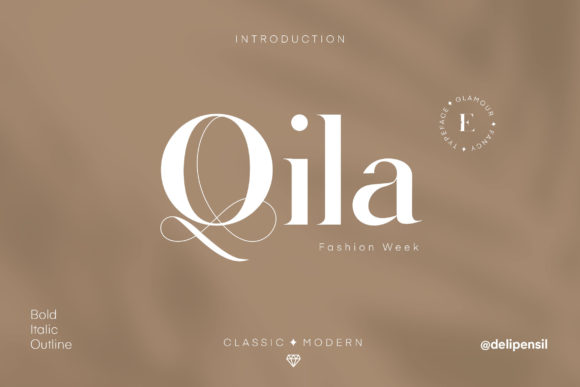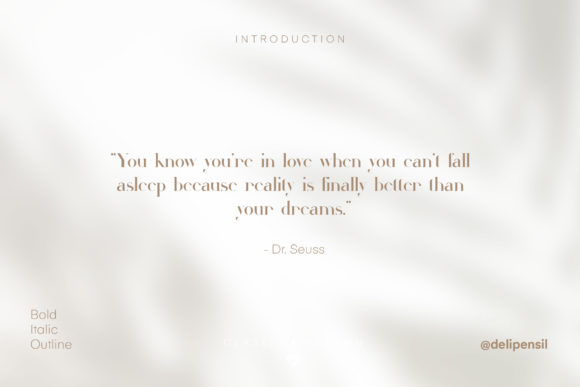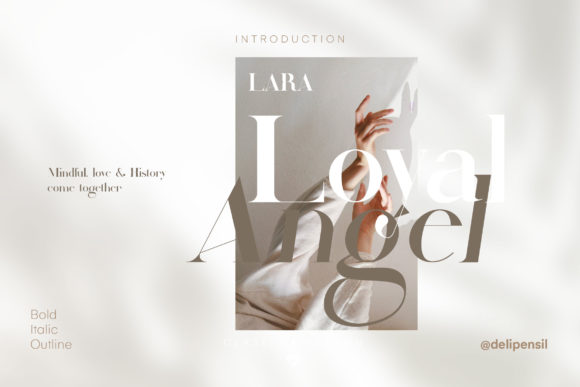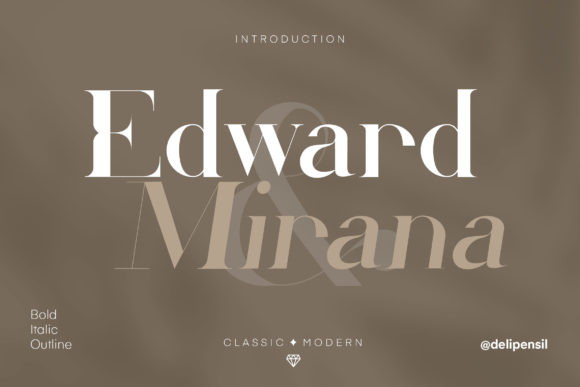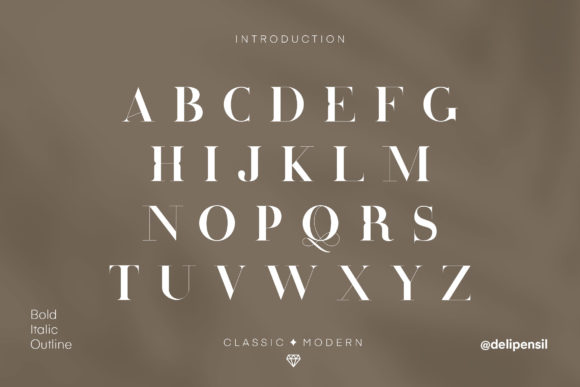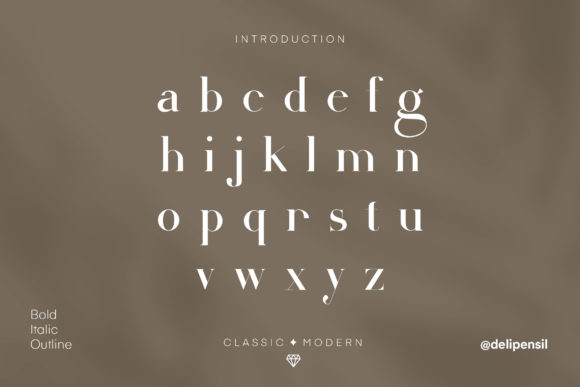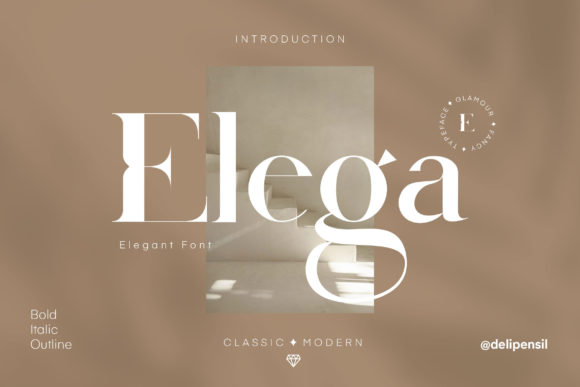
Elega Font: Elevate Your Designs with Elegance and Sophistication
In the world of typography, fonts play a crucial role in conveying the tone and personality of a design. Among the numerous fonts available, Elega stands out as a distinct and refined serif font that can elevate your creations to new heights. In this article, we’ll explore the features, benefits, and uses of Elega font, and why it’s a wonderful asset to your font library.
What is Elega Font?
Elega is a meticulously crafted serif font, designed to bring a touch of sophistication and elegance to your designs. Its neat and highly detailed structure makes it perfect for a wide range of applications, from print materials to digital platforms. Whether you’re working on a branding project, a website, or a marketing campaign, Elega font is sure to make a lasting impression.
Key Features of Elega Font
- Distinctive Serif Design: Elega’s serif design is both classic and modern, making it versatile enough to work well in various contexts.
- Highly Detailed: The font’s intricate details ensure that it remains legible and visually appealing, even at smaller sizes.
- Refined Aesthetic: Elega’s refined aesthetic makes it perfect for designs that require a touch of sophistication and luxury.
- Multi-Platform Compatibility: Elega font can be used on various platforms, including print, web, and mobile devices.
Benefits of Using Elega Font
So, why should you choose Elega font for your designs? Here are some benefits that make it an excellent addition to your font library:
- Enhances Readability: Elega’s clear and legible design ensures that your text is easy to read, making it perfect for body text and headings.
- Elevates Brand Identity: Elega’s sophisticated aesthetic can help elevate your brand’s identity and create a lasting impression on your audience.
- Versatile: Elega font can be used in various design contexts, from editorial design to digital interfaces.
- Unique: Elega’s distinctive design sets it apart from other serif fonts, making it an excellent choice for designers looking for something new and exciting.
Use Cases for Elega Font
Elega font is suitable for a wide range of design applications, including:
- Branding and Identity: Use Elega font to create a sophisticated brand identity that resonates with your target audience.
- Print Materials: Elega font is perfect for print materials, such as brochures, magazines, and business cards.
- Digital Platforms: Use Elega font on your website, mobile app, or social media platforms to create a cohesive brand experience.
- Editorial Design: Elega font is ideal for editorial design, including books, newspapers, and magazines.
Tips for Using Elega Font
To get the most out of Elega font, here are some tips to keep in mind:
- Pair with Other Fonts: Experiment with pairing Elega font with other fonts to create a unique and visually appealing typography.
- Adjust Font Sizes: Adjust font sizes to create visual hierarchy and emphasize important information.
- Use Color Effectively: Use color effectively to enhance the aesthetic of Elega font and create a cohesive brand experience.
In conclusion, Elega font is a distinct and refined serif font that can elevate your designs to new heights. Its highly detailed structure, refined aesthetic, and versatility make it a wonderful asset to your font library. Whether you’re a designer, craftsperson, or marketer, Elega font is sure to become a go-to choice for your typography needs.